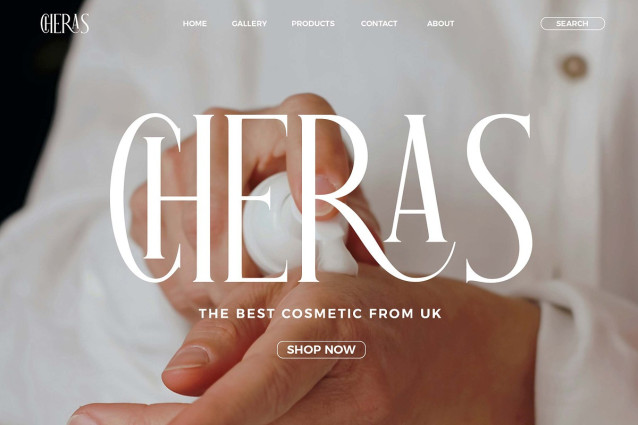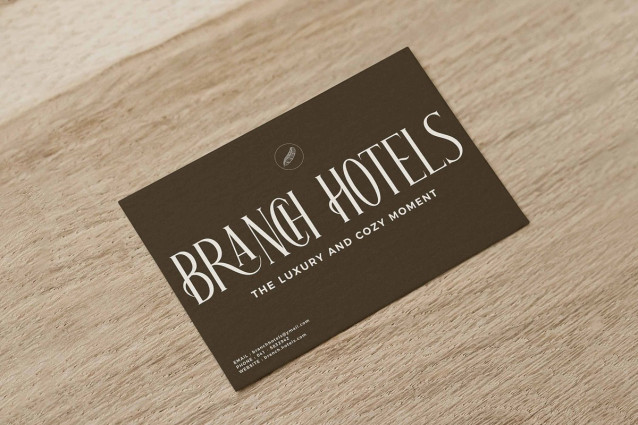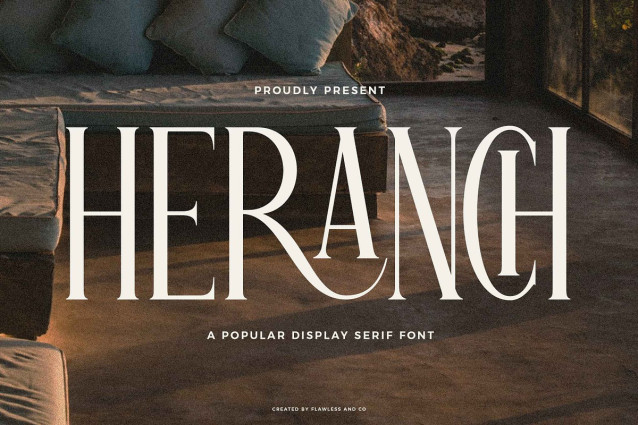
Heranch Font
Heranch Font is an elegant serif typeface with a refined sense of drama and heritage. Designed for display use, Heranch features sharp contrast, narrow proportions, and gracefully sculpted serifs, making it ideal for editorial designs, boutique branding, and upscale packaging. With its timeless appeal and contemporary detailing, Heranch delivers a harmonious blend of tradition and innovation. The font’s distinctive rhythm and fluid curves add a luxurious touch to any visual composition.